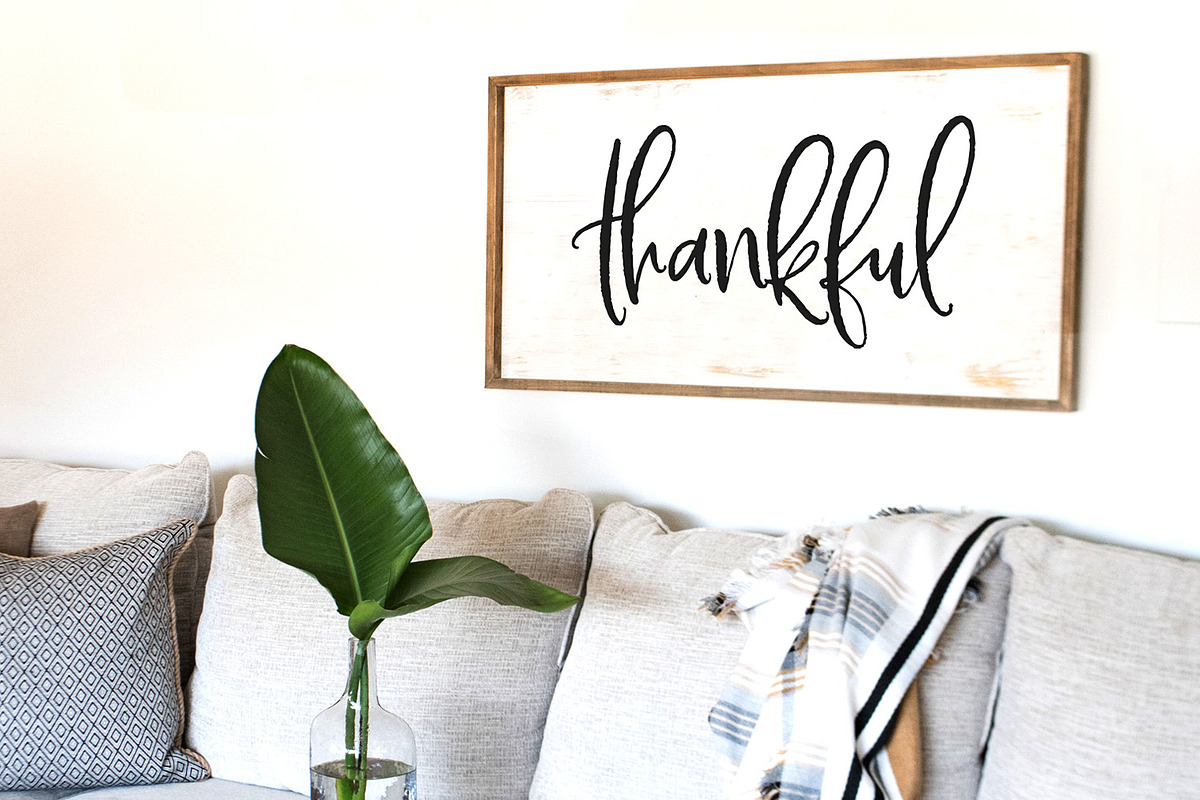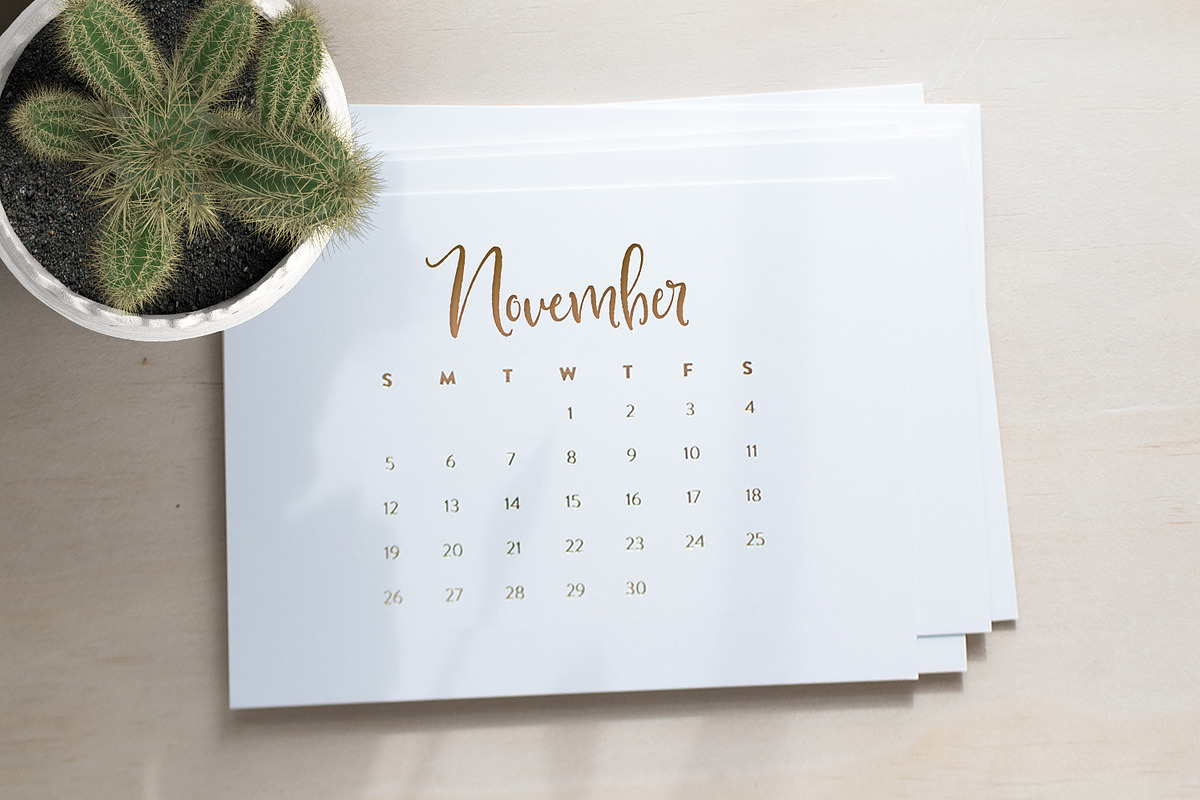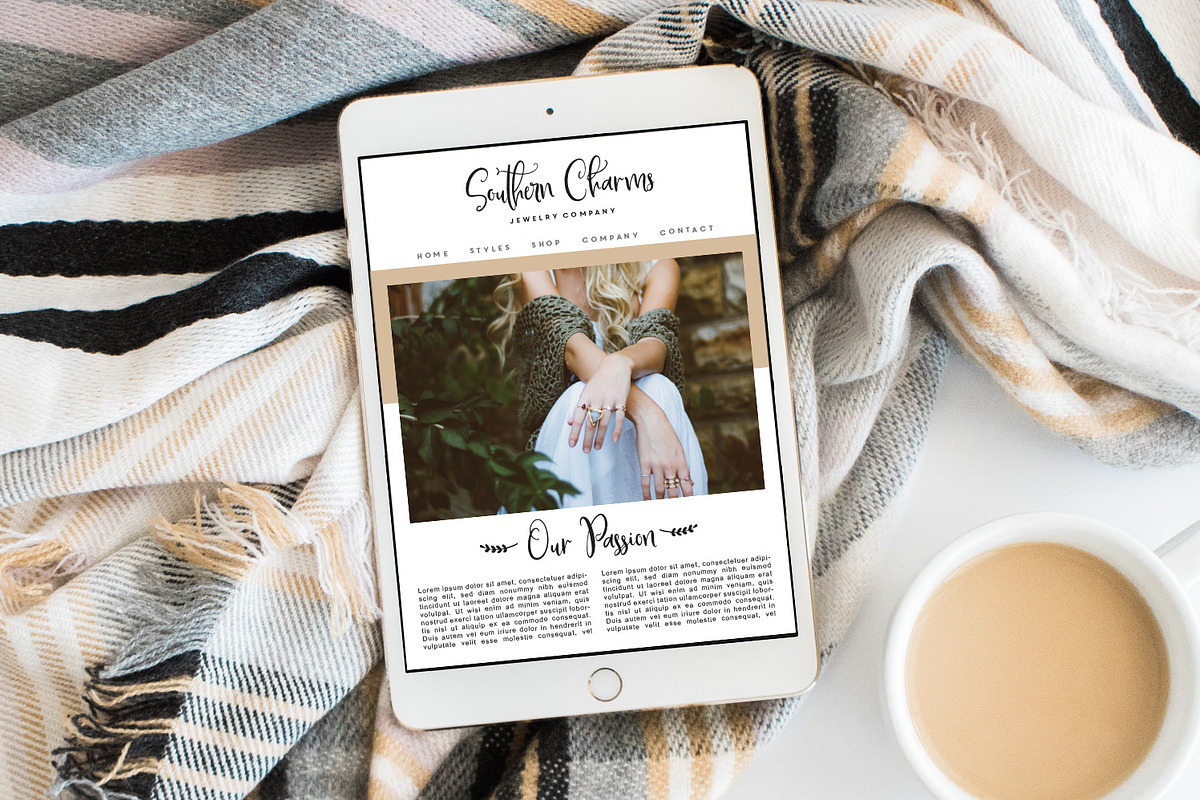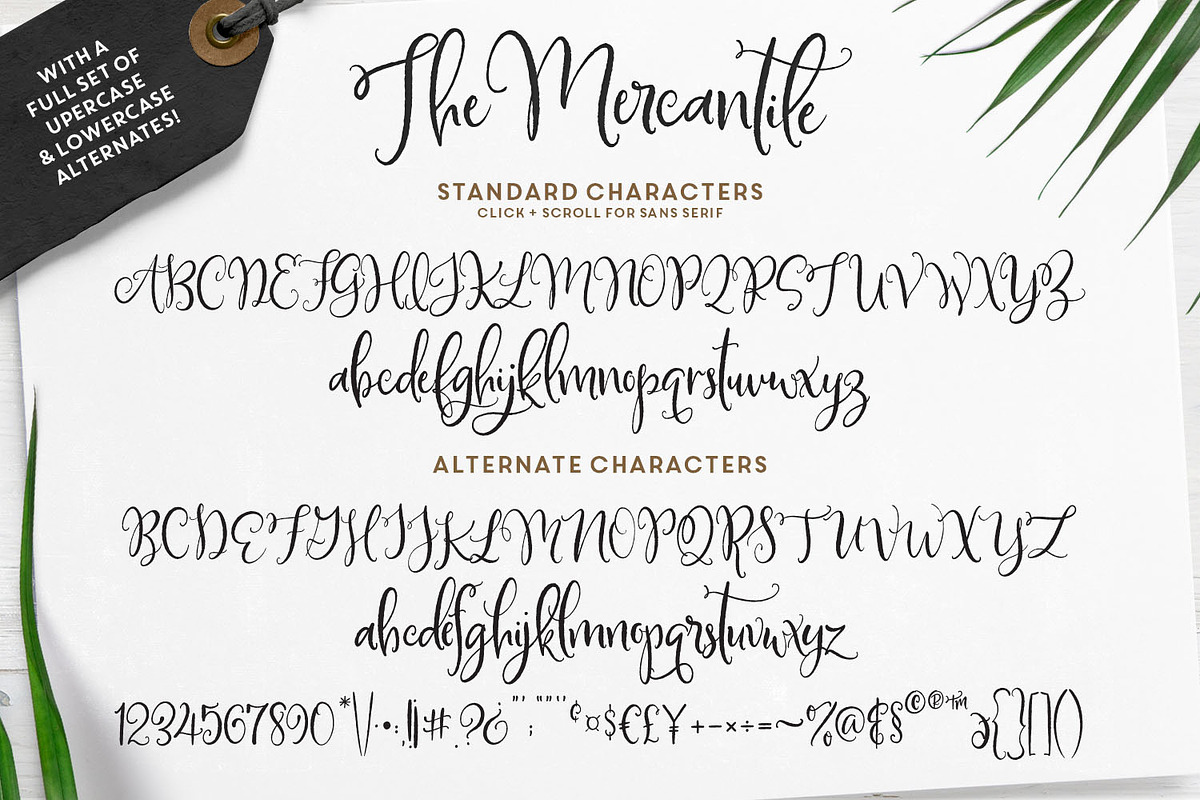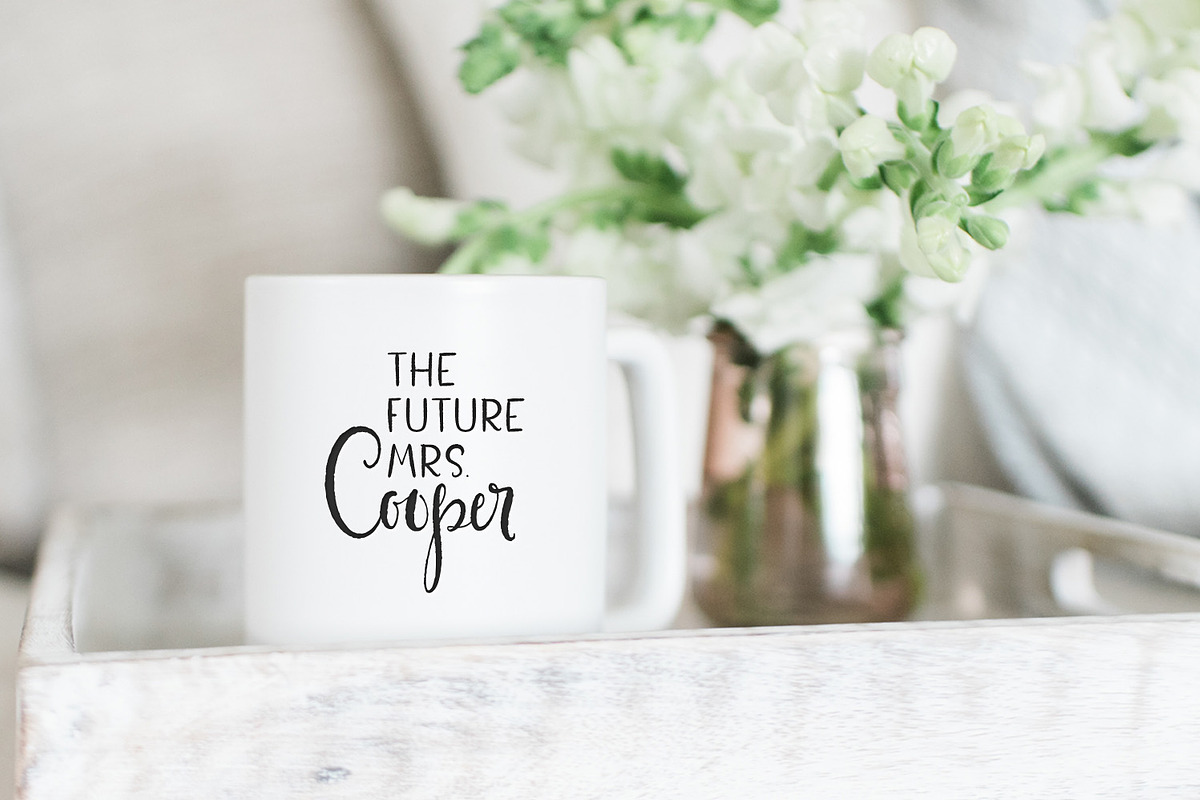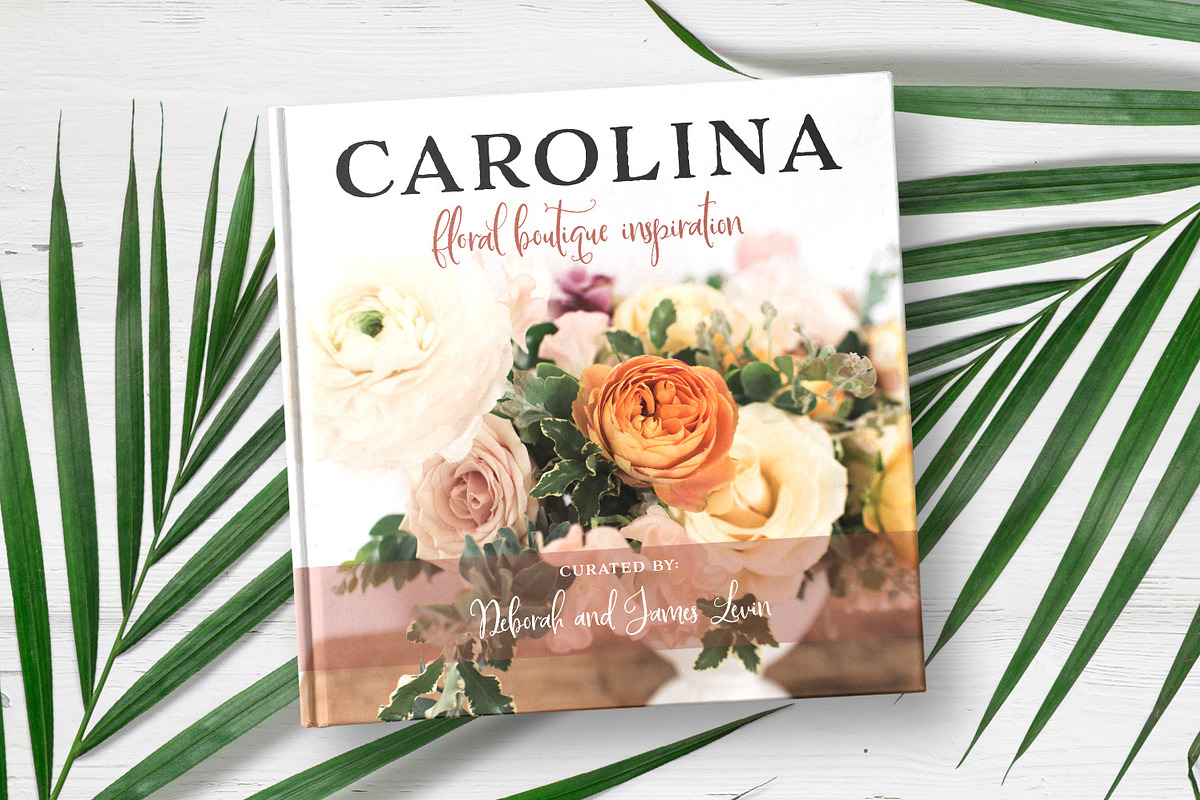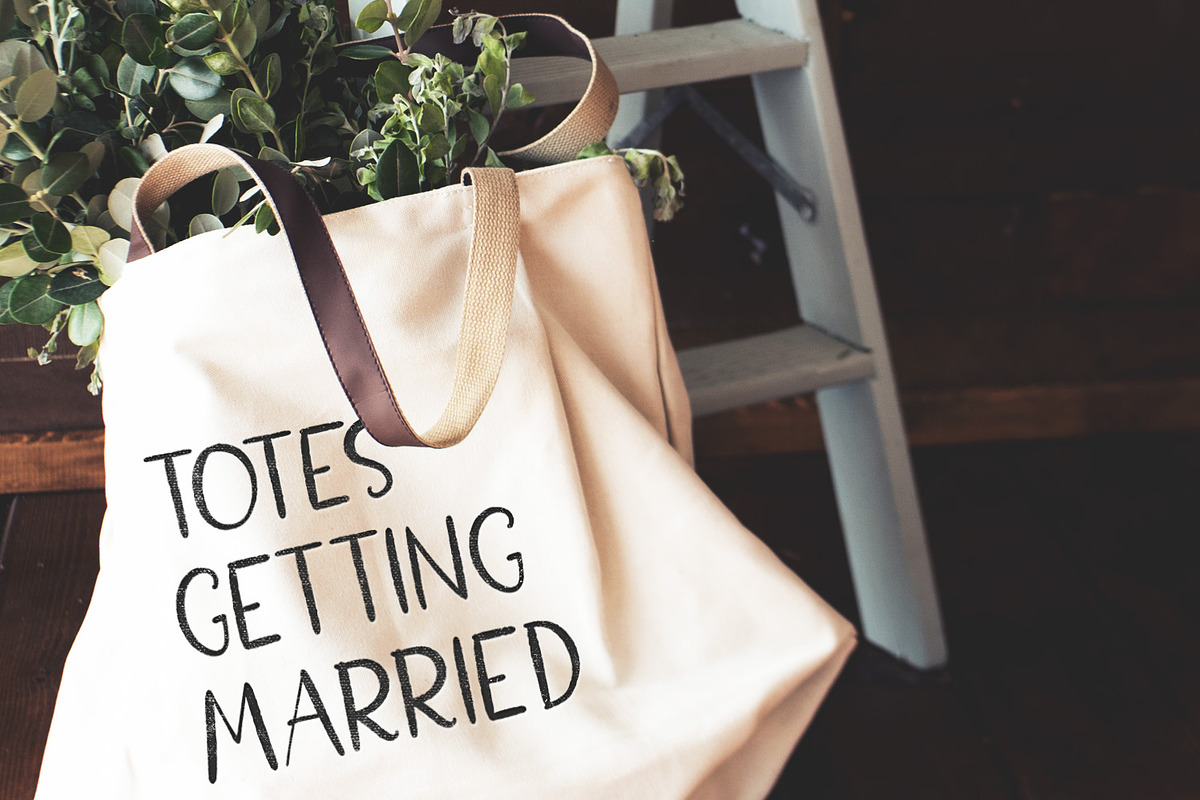
The Mercantile Font Family
Introducing The Mercantile! A sweet, Southern-inspired typeface with a full set of upper and lowercase alternates! The dancing baseline and decorative characters are perfect for wedding invites, signage, tote bags, branding, packaging and MORE! Grab this set, and you too, can be chalk-full of Southern charm! 💕
The Mercantile Script (OTF & TTF) - A flirty, causal semi-script, complete with a FULL set of both uppercase and lowercase alternates and ligatures (Including over 80 additional characters).
The Mercantile Sans (OTF & TTF) - An adorable sans serif to compliment Magnolia Merchant Script.
The Mercantile Extras (OTF & TTF) - More than 50 extra decorative elements and catch words to make your work stand out!
The Mercantile contains the following language support: AÀÁÂÃÄÅCÇDÐEÈÉÊËIÌÍÎÏNÑOØÒÓÔÕÖUÙÜÚÛWẂŴẄẀYÝŸỲŸÆŒßÞþ
- The Mercantile Italic (OTF & TTF) - An italic version for your creative pleasure.